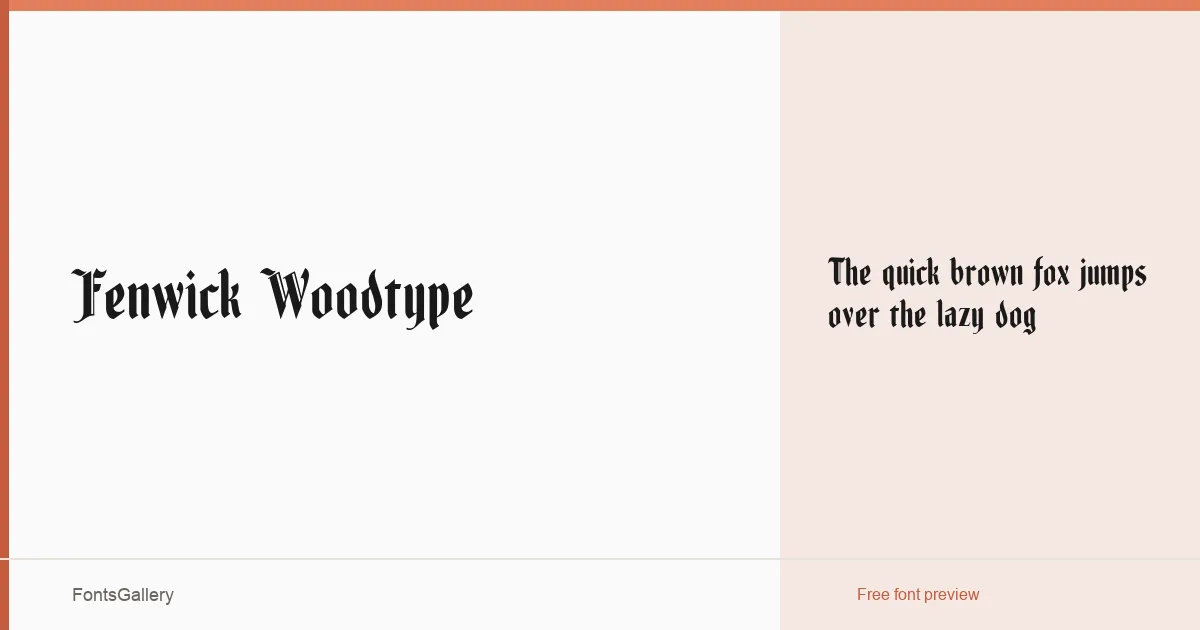
About Fenwick Woodtype Font
Fenwick Woodtype is a striking blackletter typeface from Typographer Mediengestaltung that channels the raw energy of vintage woodblock printing. Its bold, commanding presence makes it an immediately distinctive choice for designers seeking a typeface with historical character and authentic grit. The combination of classic blackletter structure with a grunge-inflected aesthetic gives Fenwick Woodtype a timeless yet edgy appeal.
True to its blackletter heritage, Fenwick Woodtype features dramatic thick-and-thin strokes, angular letterforms, and the kind of bold weight that demands attention on any surface. A subtle grunge texture runs through its characters, evoking the worn imperfections of antique woodtype printing, which adds depth and vintage authenticity. The result is a typeface that feels simultaneously classic and rebellious, balancing tradition with raw visual power.
Fenwick Woodtype excels in high-impact design contexts such as logos, posters, magazine headers, branding campaigns, and T-shirt graphics where a bold, vintage statement is desired. Its strong personality works best at large display sizes where its intricate letterform details can shine. Pair it with the clean neutrality of Helvetica for a striking contrast, or combine it with Aresink for a cohesive dark and vintage-inspired aesthetic.